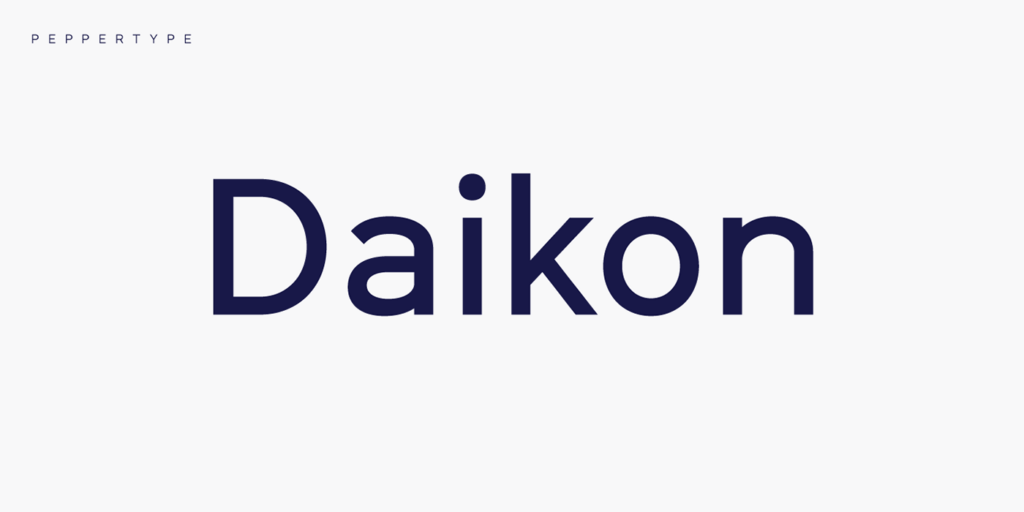
Daikon – a semi-closed geometric grotesque featuring rich language support including Cyrillic, various OpenType features, and multiple sets of figures.